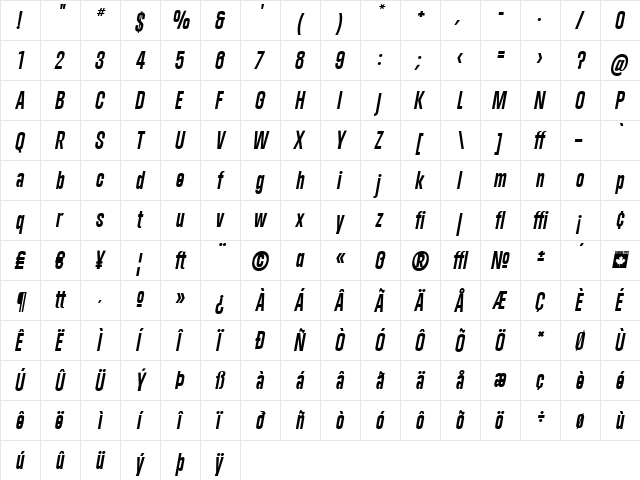
Trump Gothic West Bold Italic Font Preview
Design Context for Trump Gothic West Typeface
Trump Gothic West has the quiet confidence of well-executed sans-serif typography: versatile, unobtrusive, and dependable at any size. Its italic angle brings a sense of urgency and motion to the letterforms. The heavy weight commands attention and anchors typographic hierarchies.
A strong choice for UI design, app interfaces, bold signage, and corporate brand systems.
Font Pairing: Use Trump Gothic West for headlines alongside a lighter-weight sans or serif for body copy to establish clear visual hierarchy.
Pro Tip: Pair Trump Gothic West with a display or serif font for headlines — its neutral character makes it an excellent supporting player in complex typographic systems.